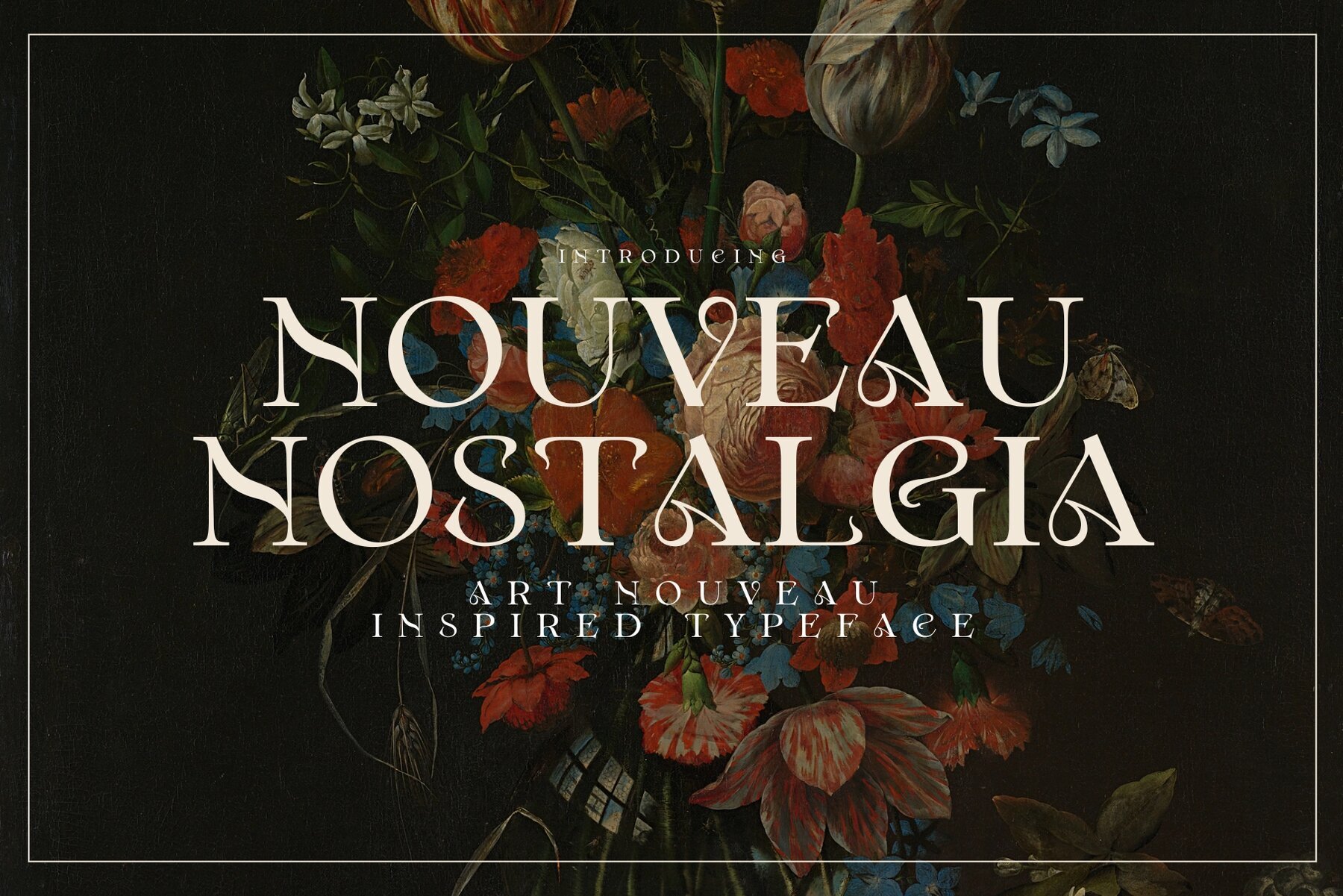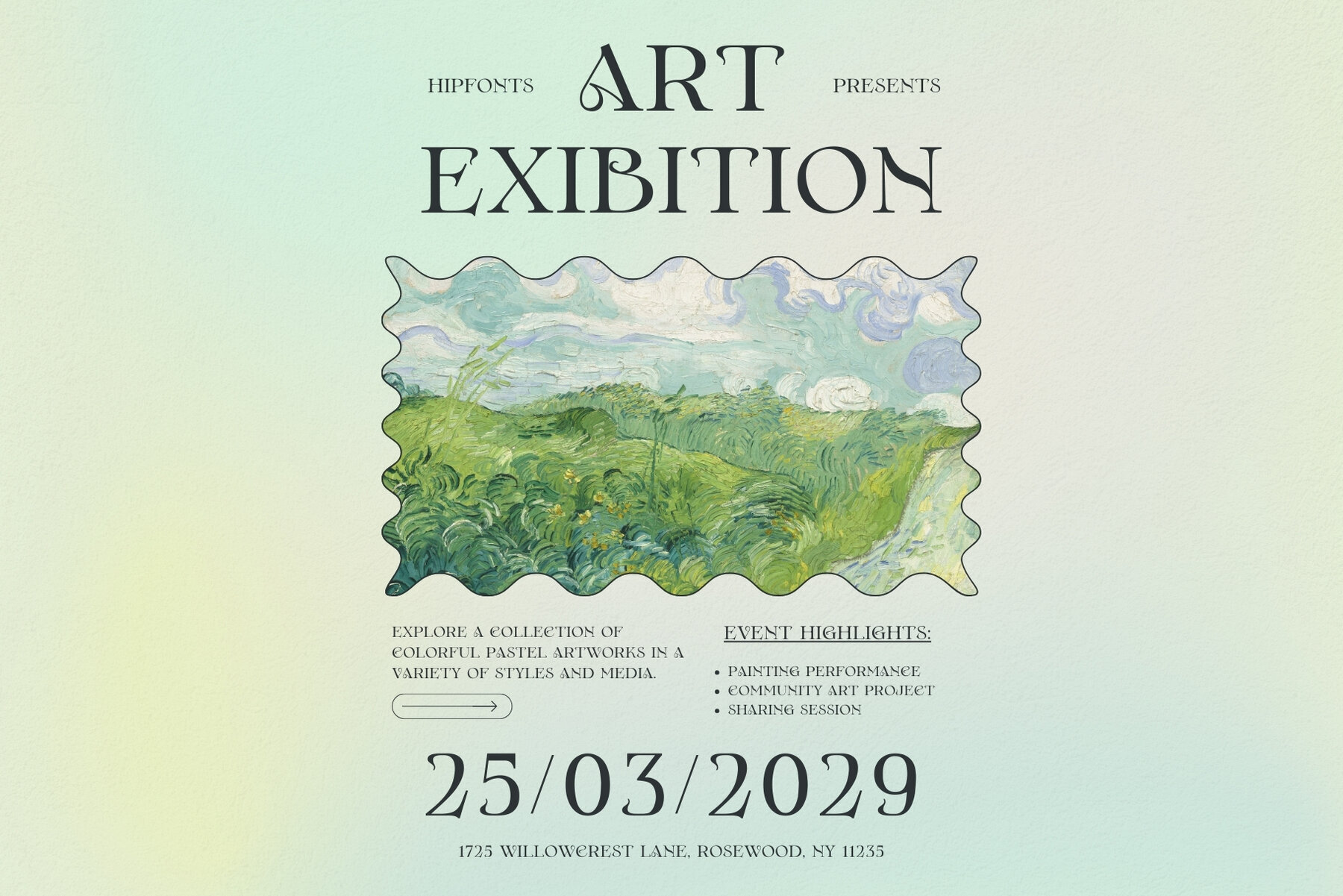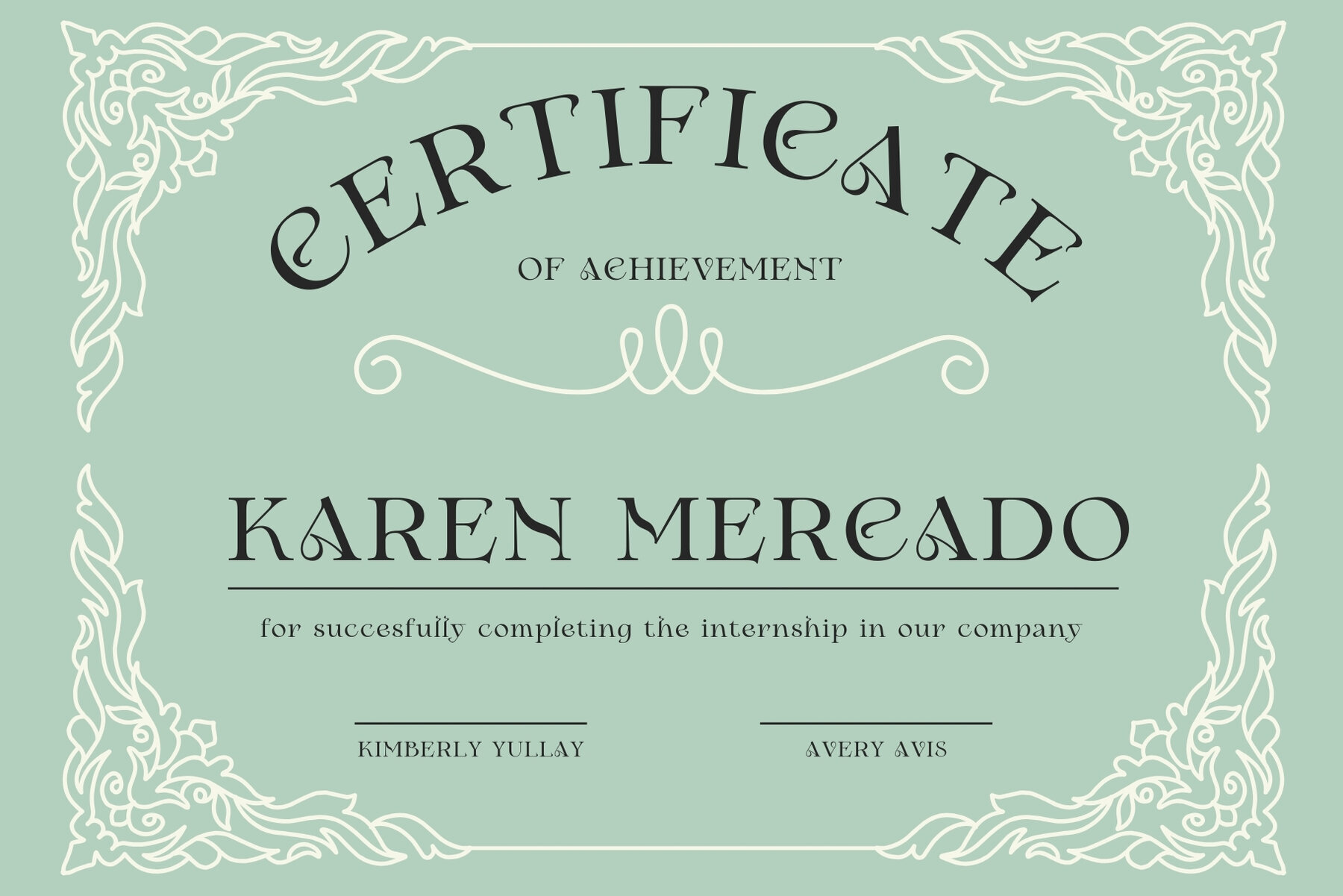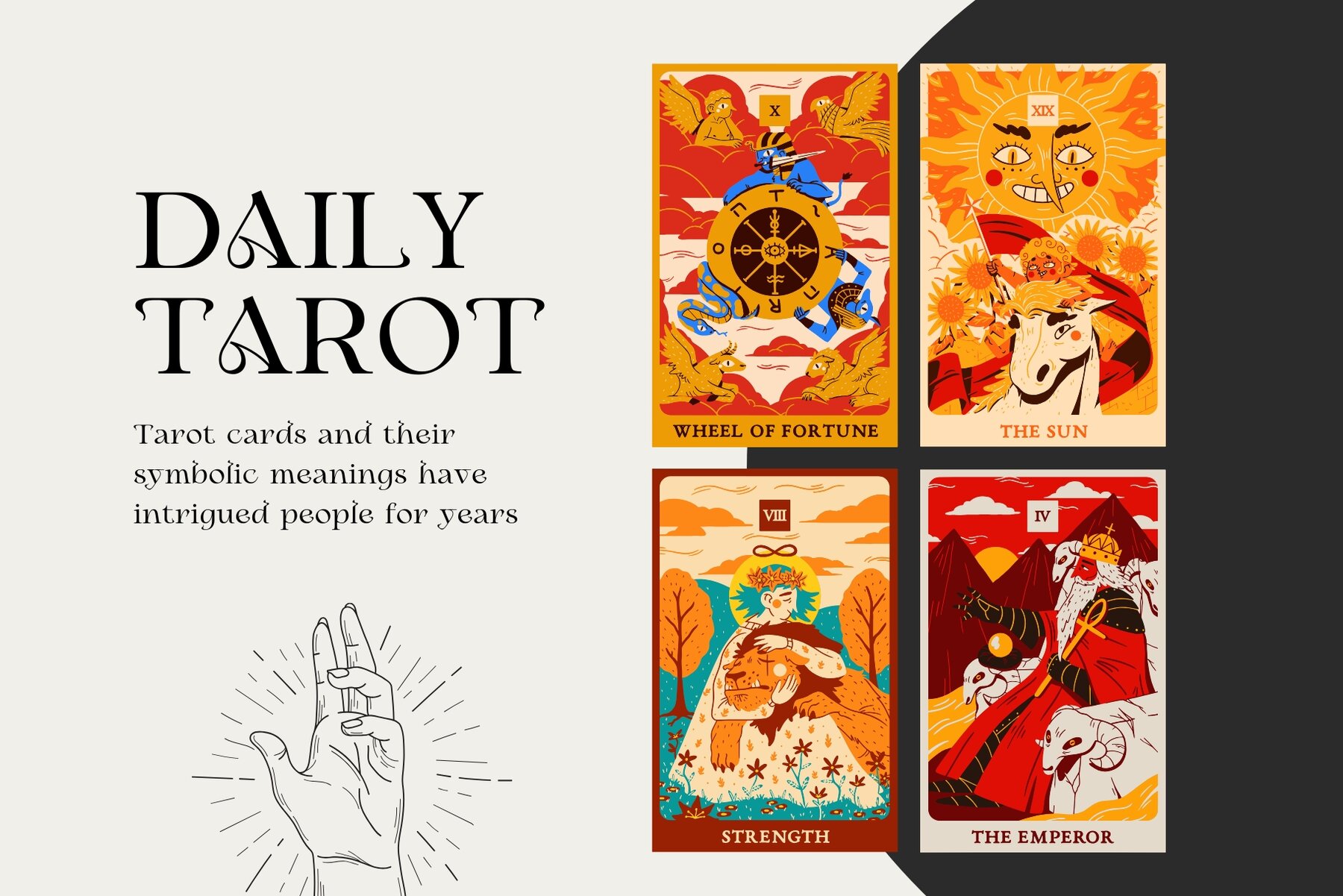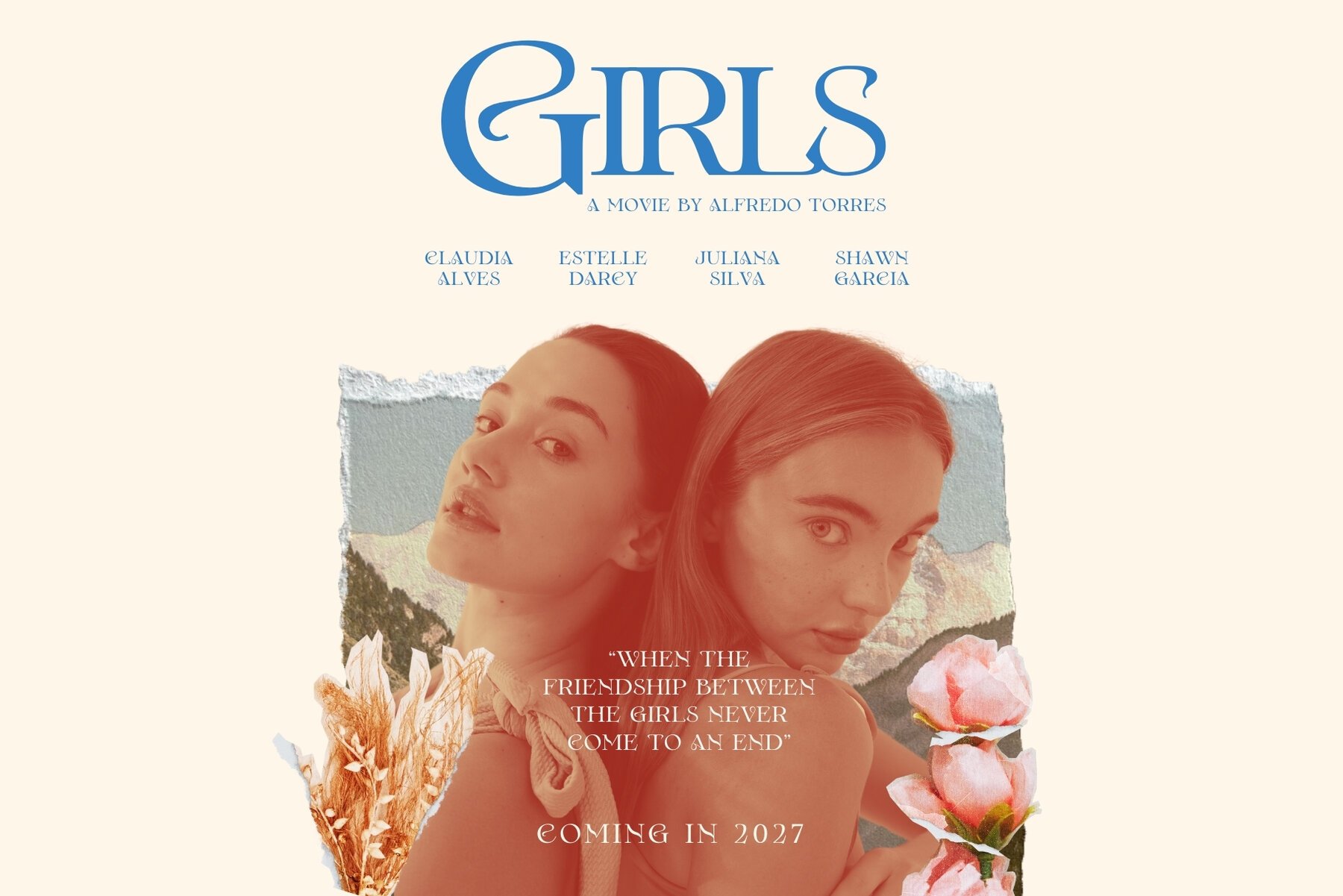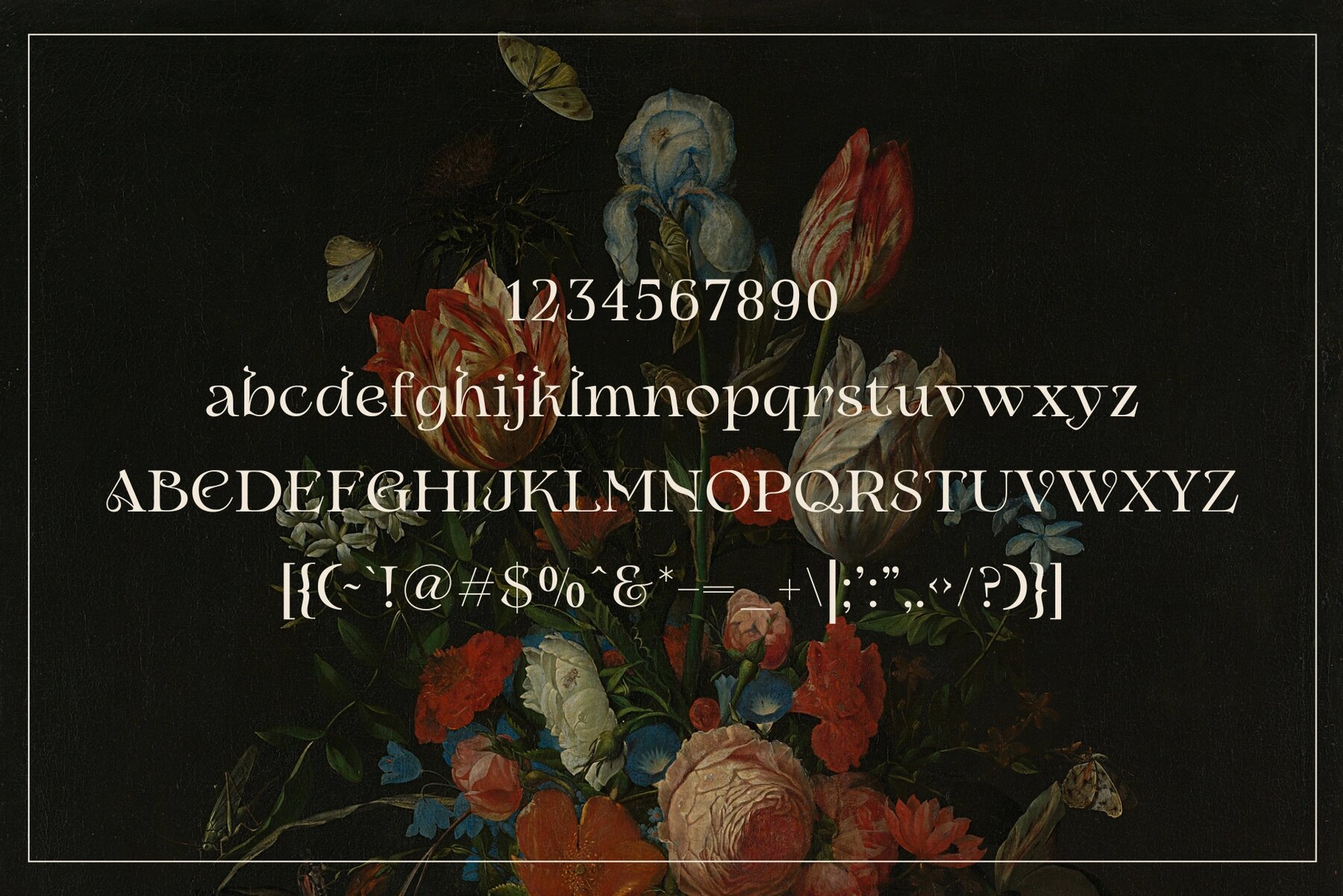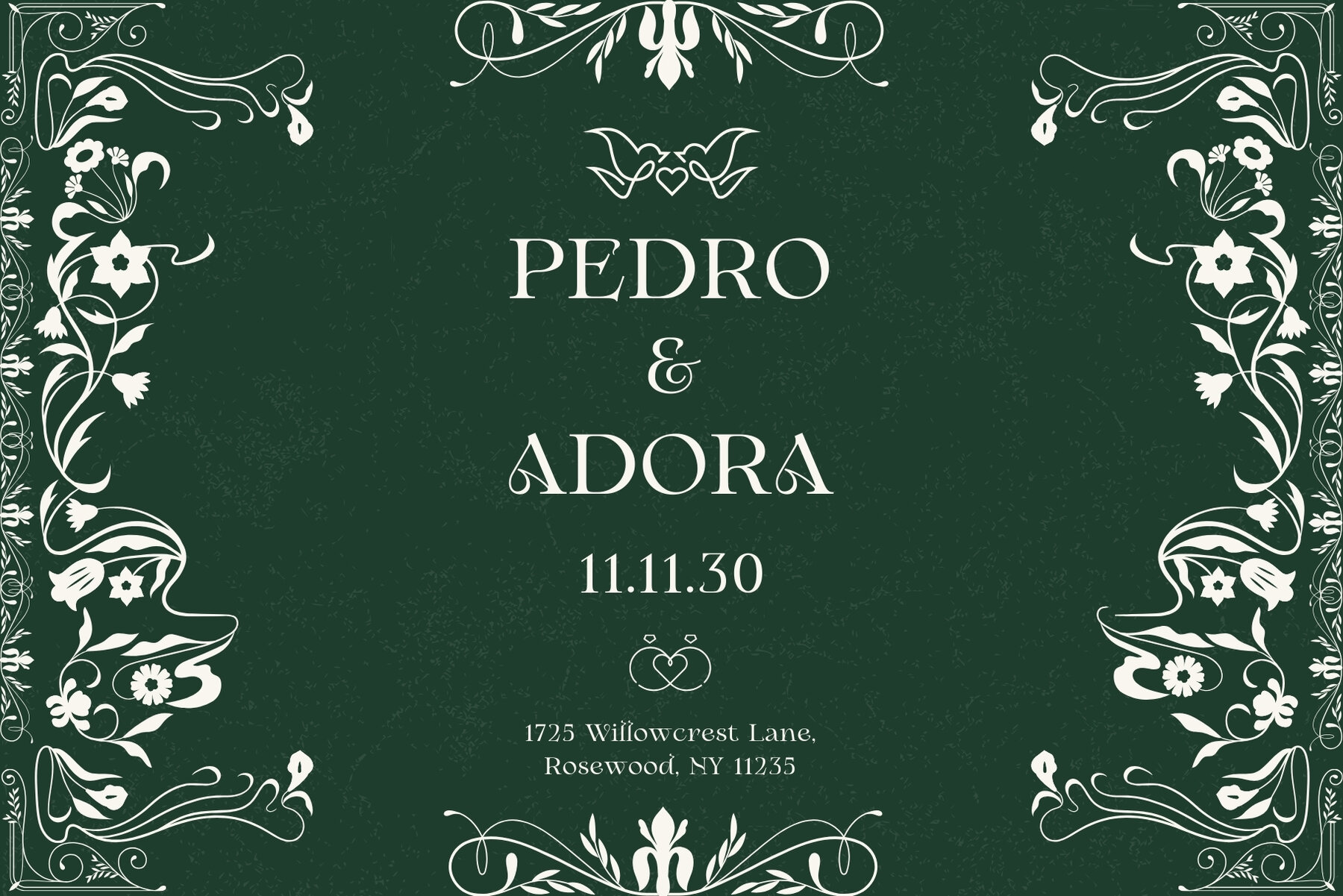
Nouveau Nostalgia Font
Nouveau Nostalgia
Embrace the elegance, romance, and vintage allure of Nouveau Nostalgia, a stunning typeface drawing inspiration from Art Nouveau's flowing beauty. This font captures ornate curves and delicate flourishes, exuding timeless sophistication. Perfect for any project seeking grace and refinement, from wedding invitations and certificates to film titles and vintage-inspired posters. Nouveau Nostalgia adds a touch of old-world grandeur to your designs, whether crafting a romantic brand identity, an elegant menu, or a storybook-worthy creation. Its historical charm and artistic finesse make it a distinctive choice, enhancing your work with a statement of timeless artistry.Nouveau Nostalgia Typeface